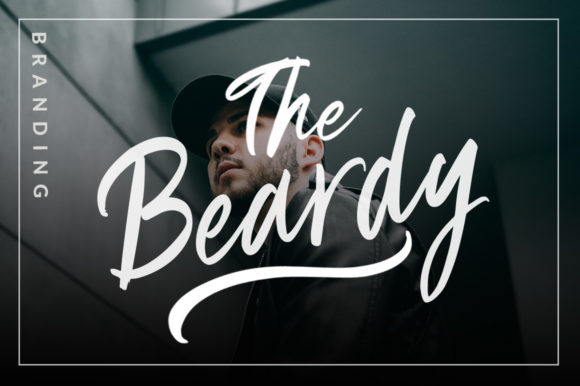
**Experience the Allure of The Beardy Script Font, Designed for Creating Impactful Research Posters**
Welcome to the realm of The Beardy Font, a remarkable script family that epitomizes elegance, sophistication, and boundless creativity. Immerse yourself in the world of typography and discover the enchanting allure of this font, crafted with meticulous attention to detail by the renowned Mindtype Co.
**A Masterpiece of Calligraphy, Reimagined for the Digital Age**
The Beardy Script Font is meticulously designed to evoke the timeless charm of traditional calligraphy, seamlessly blending the beauty of handwritten letters with the precision of modern digital technology. Its intricate strokes and graceful curves exude a sense of artistry and sophistication that will elevate your research posters to new heights.
**A Touch of Whimsy and Charm to Captivate Your Audience**
Step into the world of The Beardy Font and unleash your creativity like never before. With its playful and whimsical style, this font is guaranteed to make your research posters stand out from the crowd. Its quirky yet elegant character will add a touch of charm and personality to your work, leaving a lasting impression on your audience.
**Versatile and Adaptable, Accommodating Your Diverse Needs**
The Beardy Script Font is not merely a font; it's a versatile tool that adapts effortlessly to a myriad of projects. Whether you're designing eye-catching posters for research conferences, creating captivating presentations for academic seminars, or crafting unique invitations for special events, this font will seamlessly integrate into your vision, adding a touch of sophistication and flair.
**Ignite Your Passion for Typography and Unleash Your Creative Potential**
With The Beardy Script Font, you hold the key to unlocking your creative potential. Its carefully crafted characters will inspire you to explore new possibilities in typography, transforming your research posters into visually stunning masterpieces. Embrace the joy of playing with words and let your imagination soar as you create designs that captivate and inspire.
**Immerse Yourself in the Legacy of Mindtype Co., Where Quality Meets Innovation**
As a creation of the esteemed Mindtype Co., The Beardy Script Font carries the torch of excellence and innovation. Their dedication to producing high-quality fonts is evident in every meticulously crafted detail, ensuring that you'll have a font that not only meets your needs but exceeds your expectations.
**Experience the Magic of The Beardy Script Font Today and Transform Your Research Posters**
The Beardy Script Font awaits you, eager to elevate your research posters to new heights of visual appeal. Its charm, versatility, and adaptability make it an indispensable tool for any designer or researcher seeking to create captivating and impactful presentations. Embrace the beauty of typography and embark on a creative journey that will leave your audience spellbound.